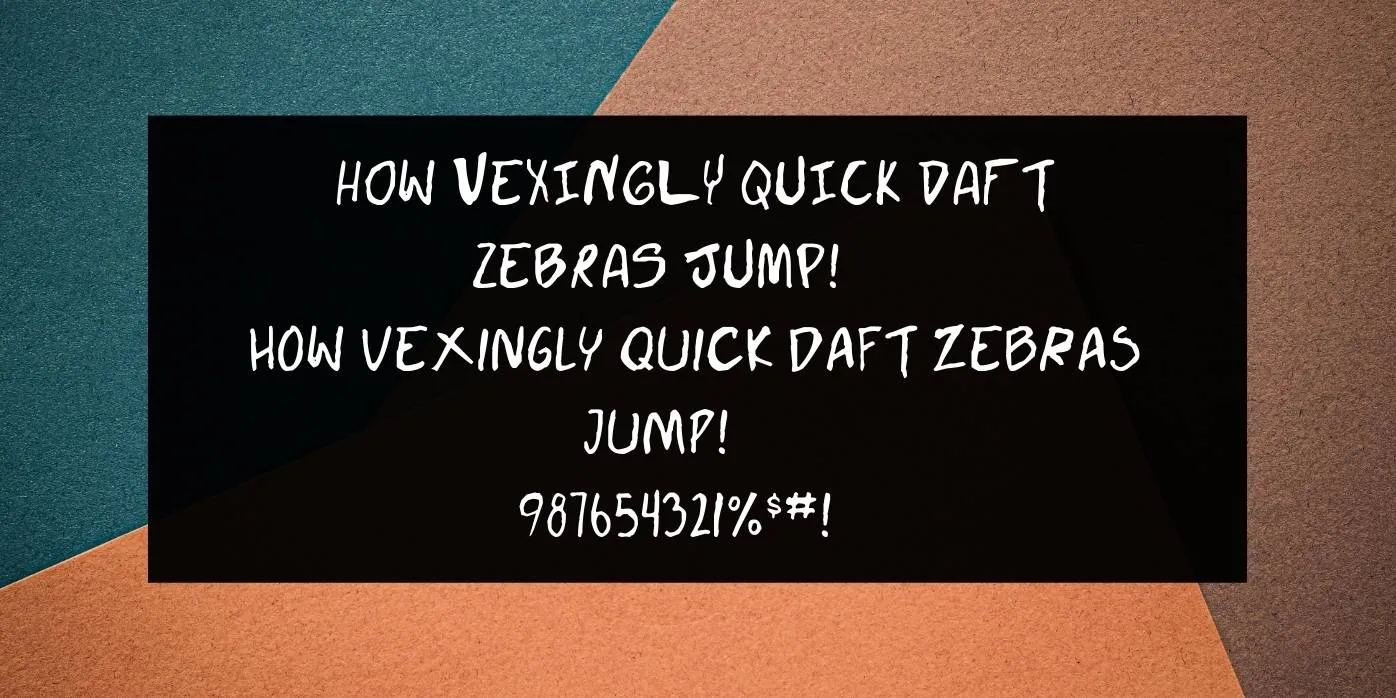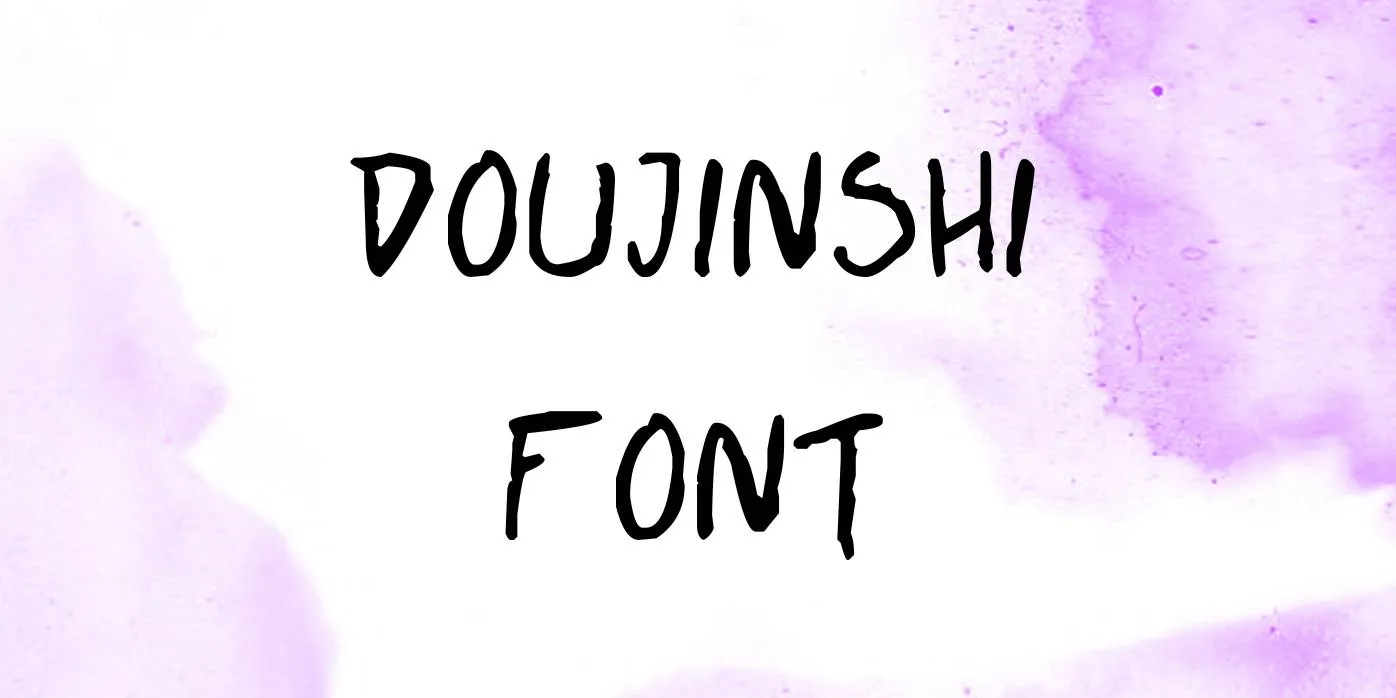
Doujinshi Font
Doujinshi Font is a comic type of font. This comic font is designed with 31 punctuation marks. This font was created in 2008 and updated in 2022. This amazing font is available in 3 different styles.
These styles are pro, pro italic, and pro bold italic. The characters of this typeface are curvy, bold, and easily readable. You can pair bodo amat font with this typeface. This pair has stunning visual effects based on exceptional similarities.